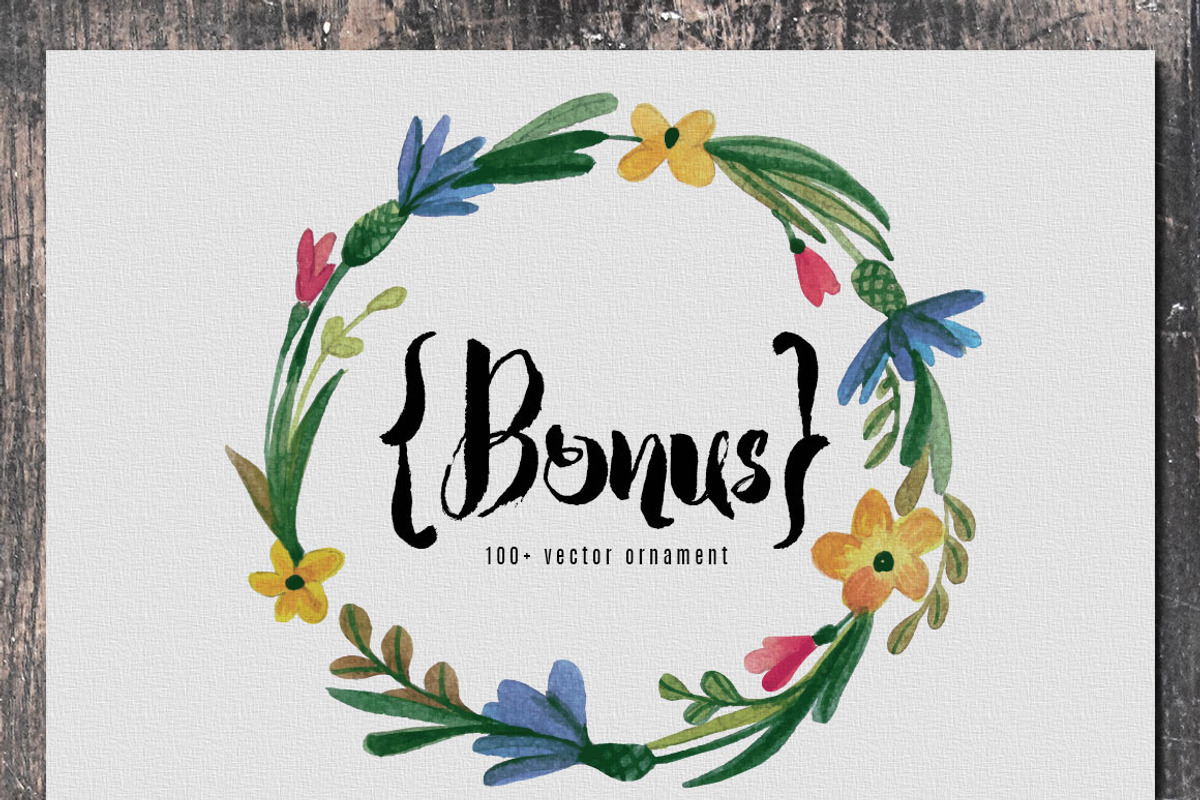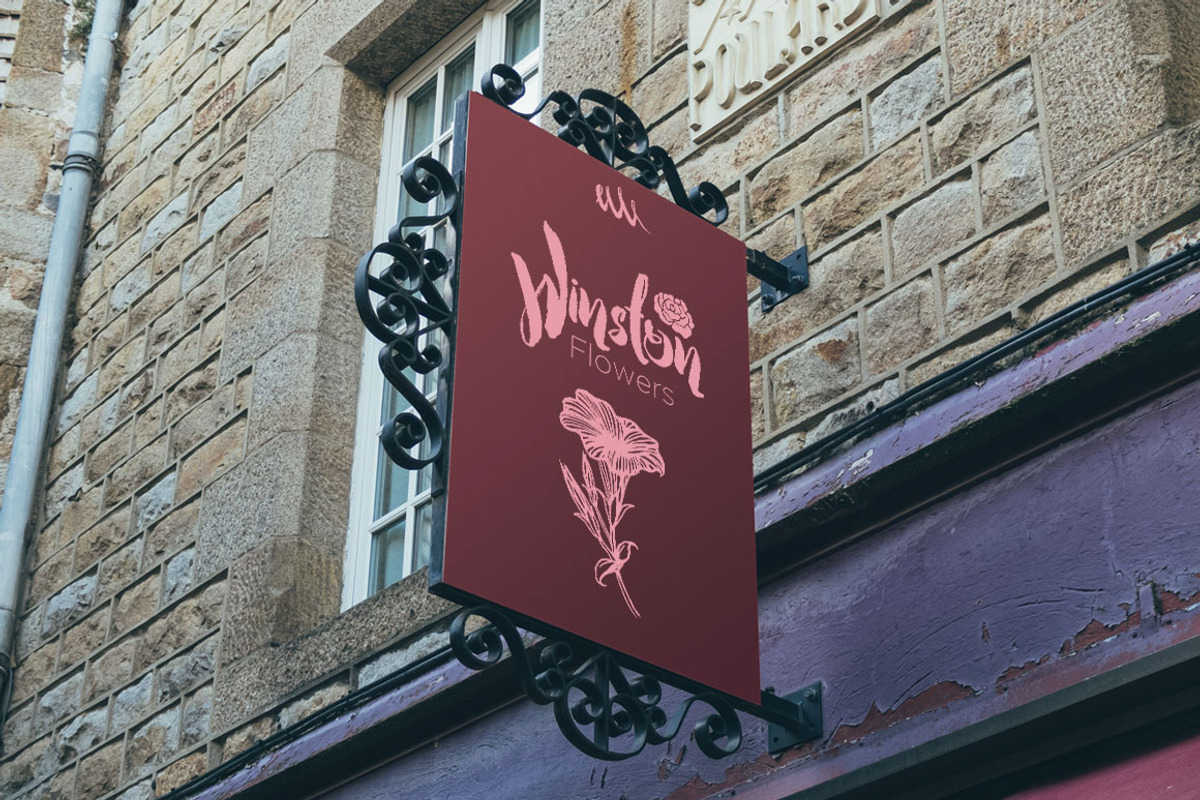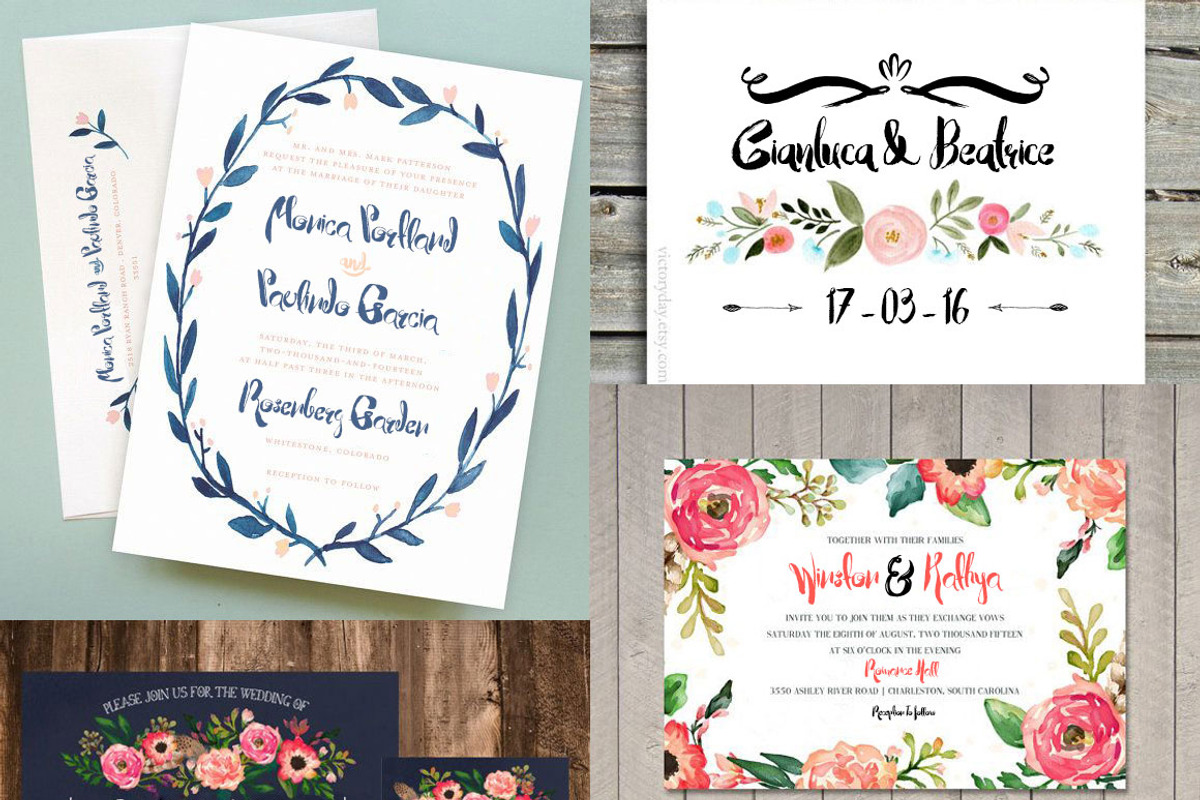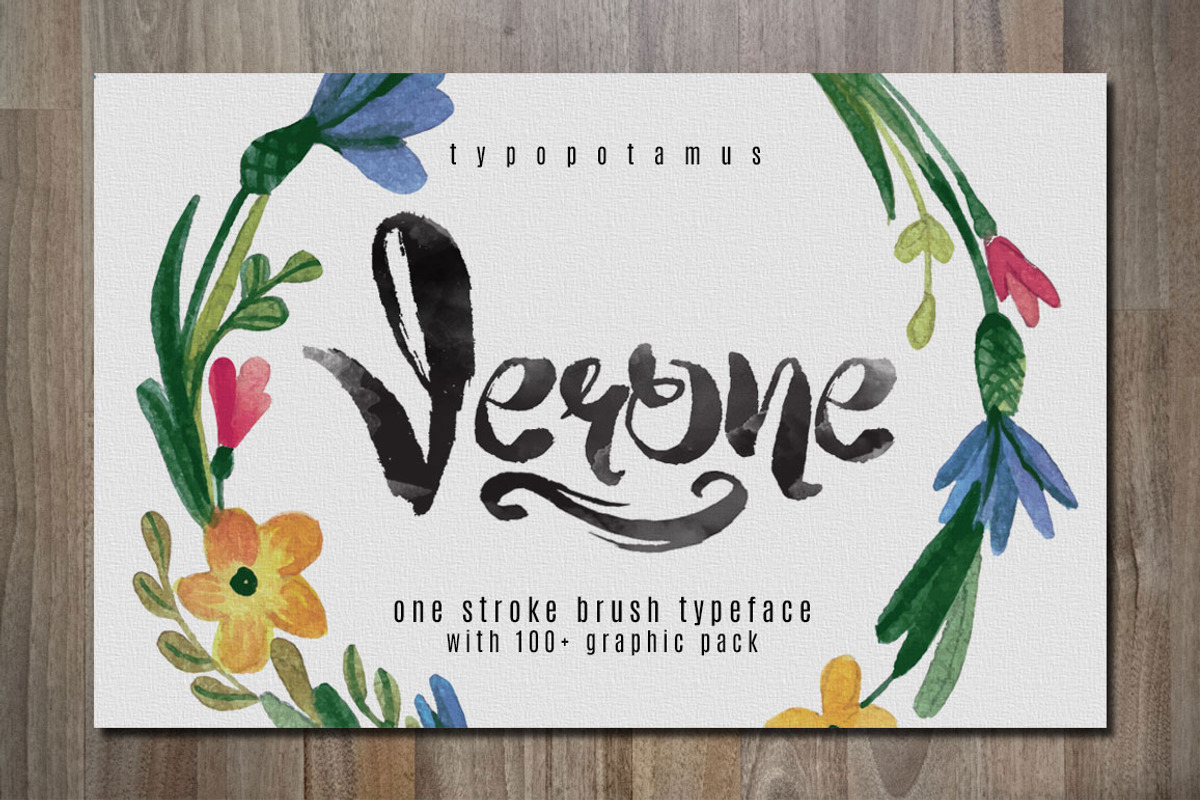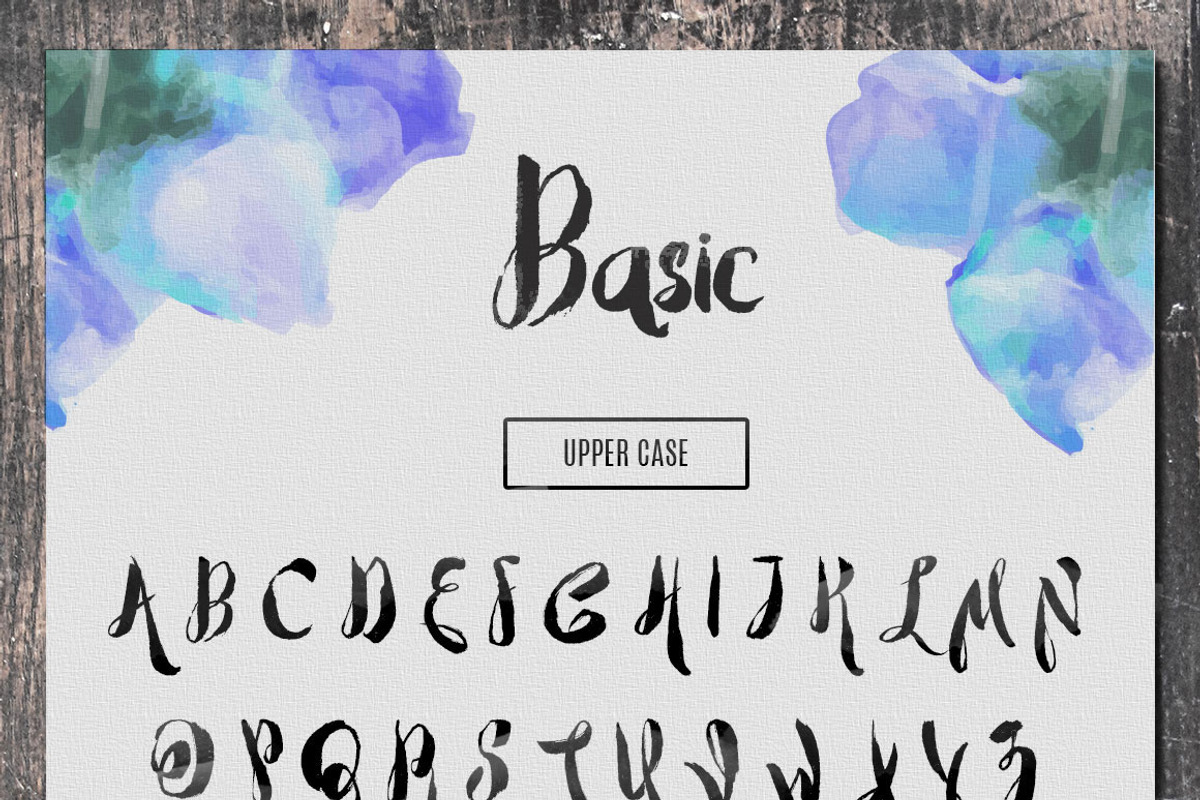
Verone Typeface
Verone Typeface by ghilkydraws is a font selected for branding, posters, packaging, typography.
- Complete lower-case and upper-case alphabet, punctuations, symbols, multi languages, ligatures and alternate style are included.
Why Verone Typeface is worth a look
Verone Typeface by ghilkydraws fits naturally into Branding, posters, packaging, typography.